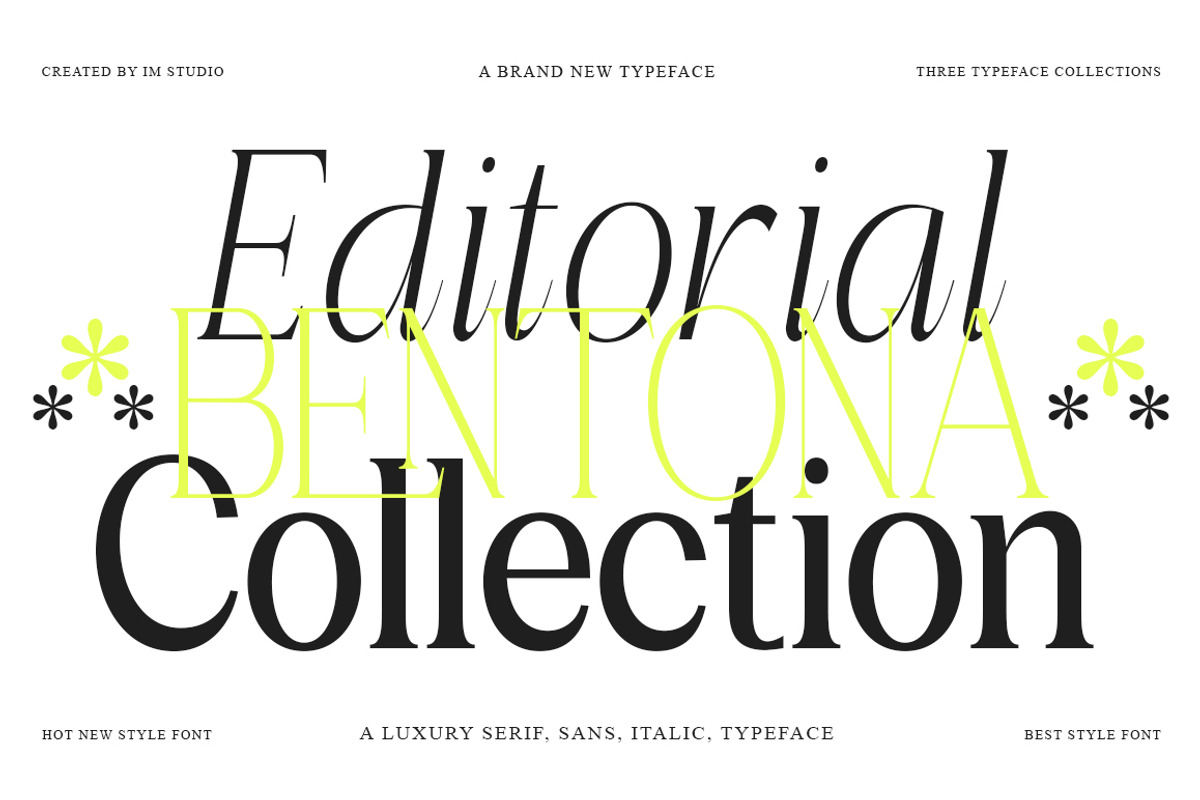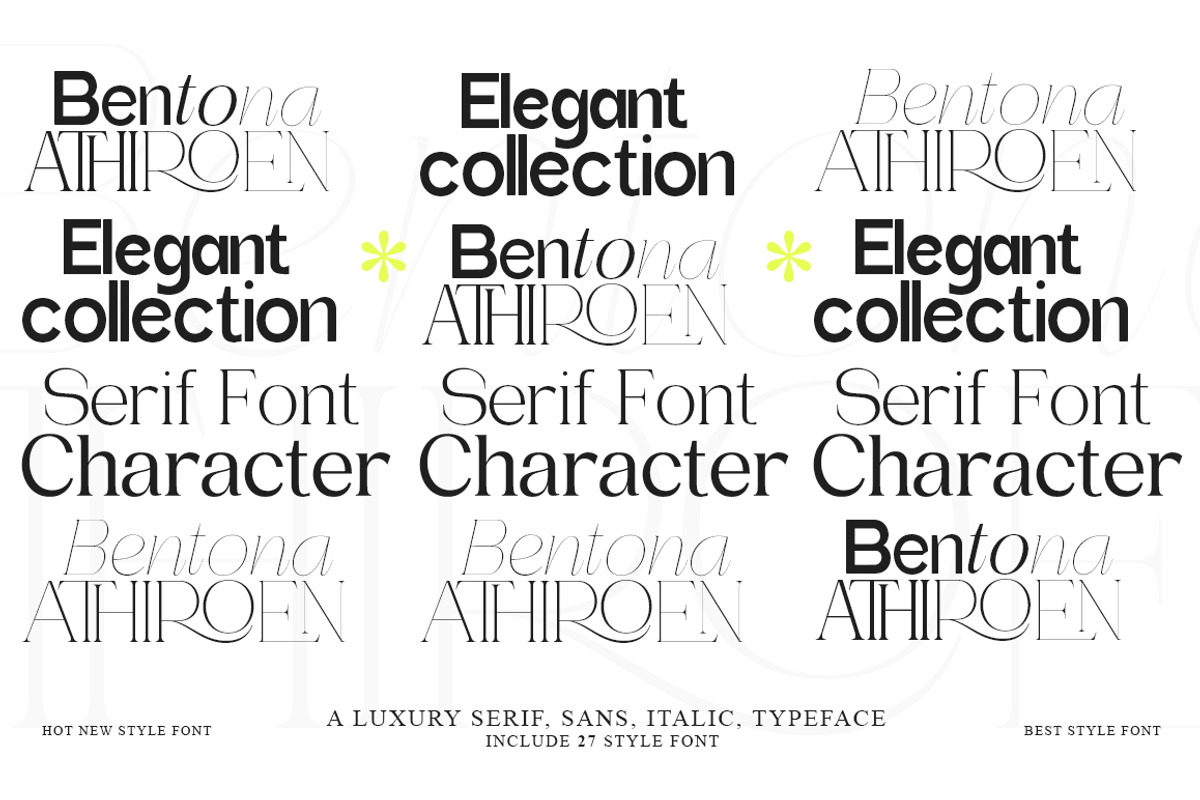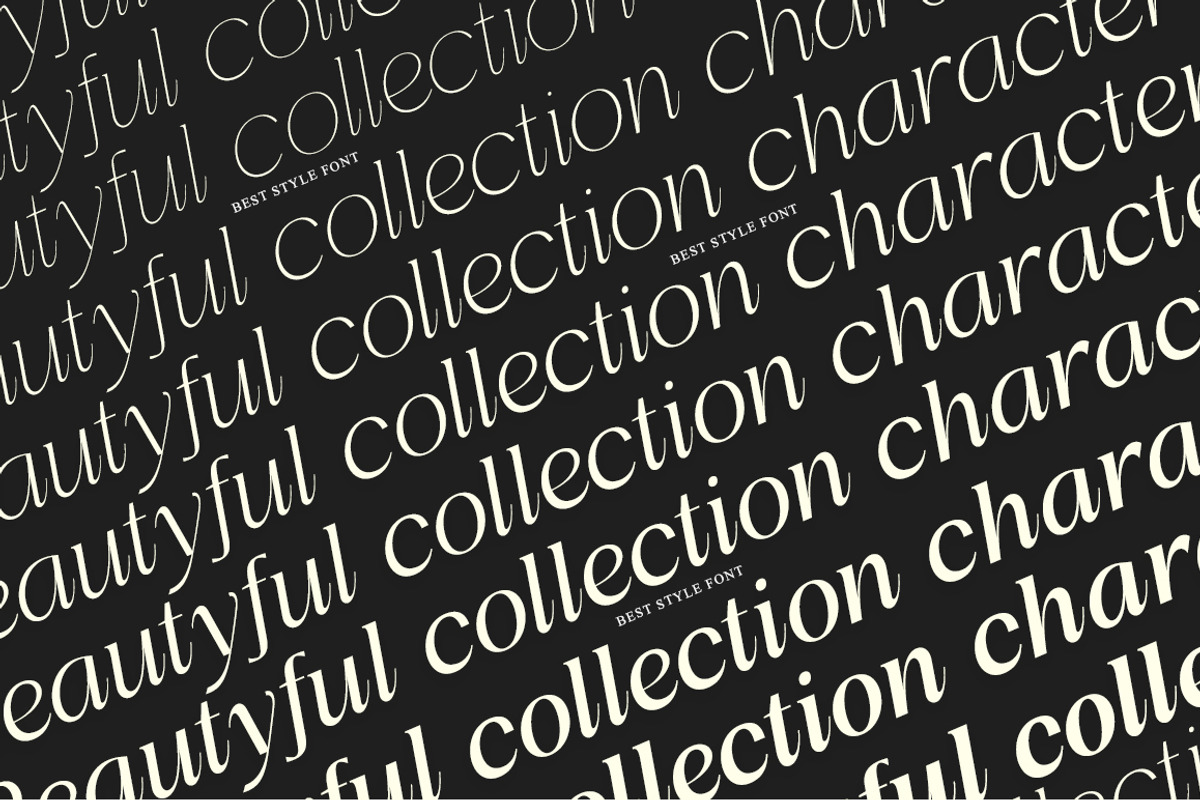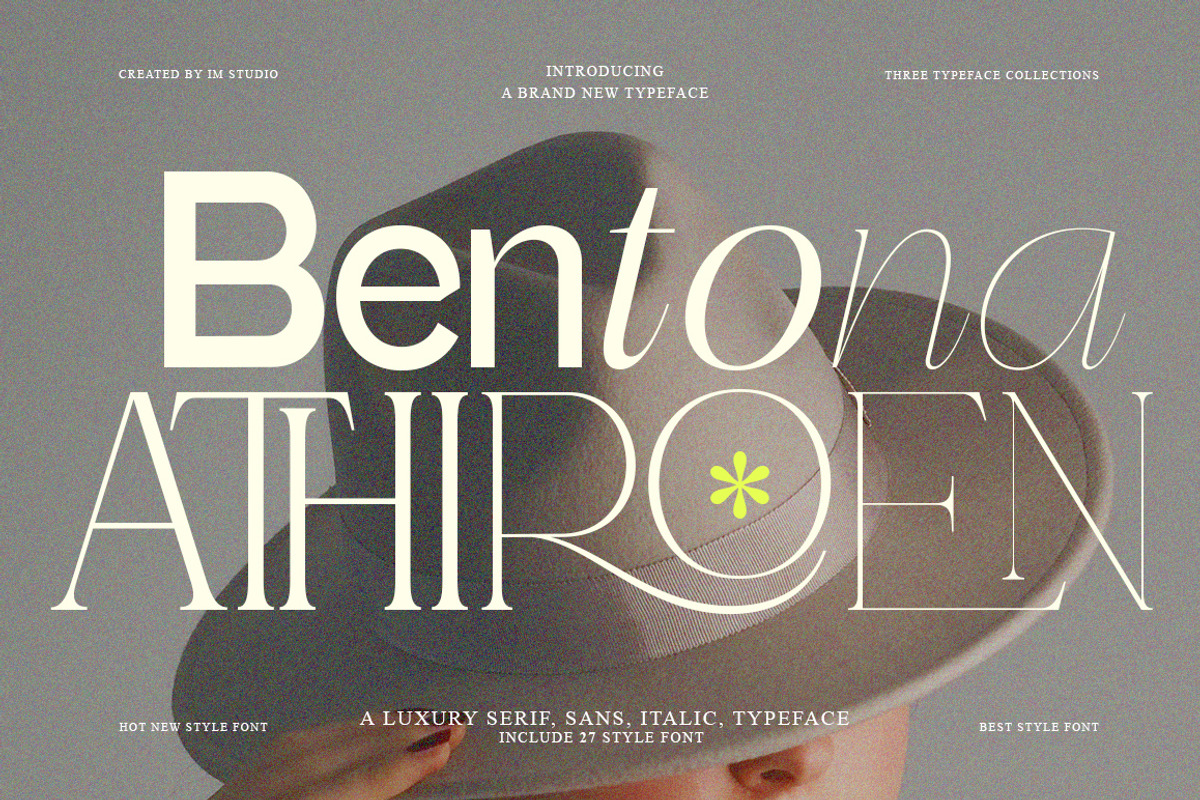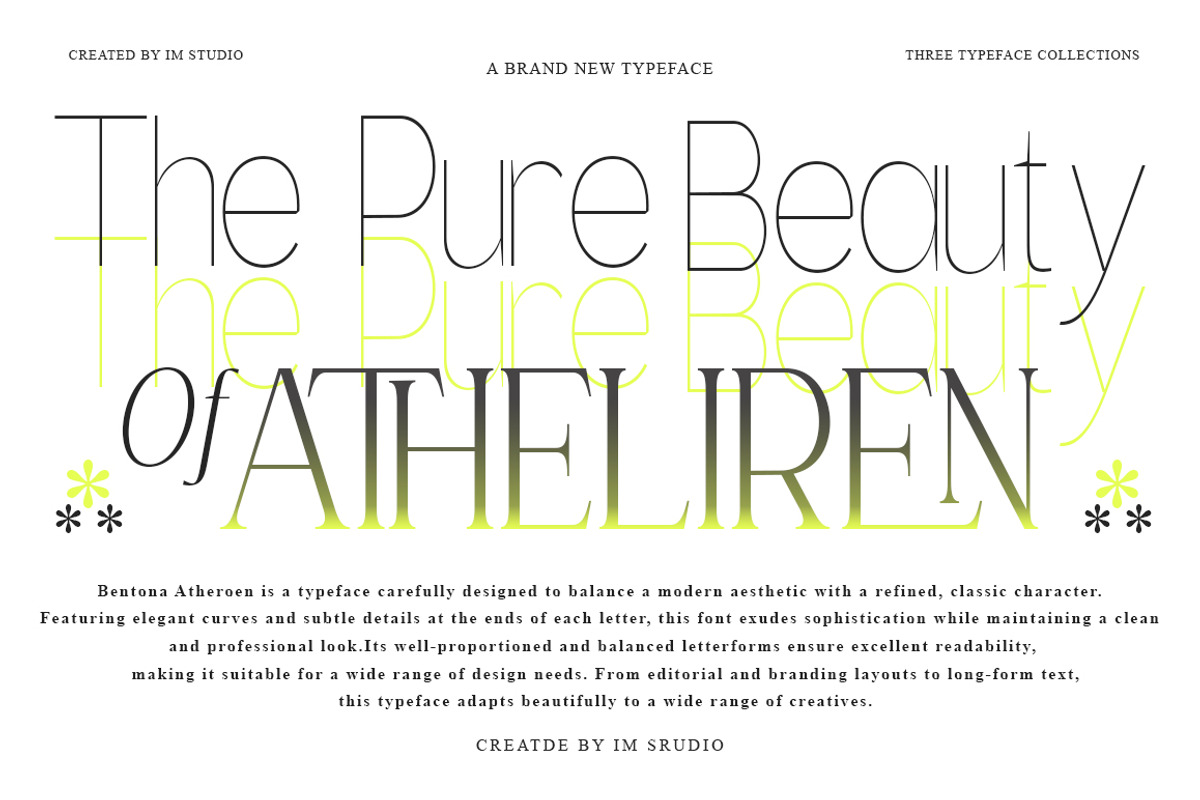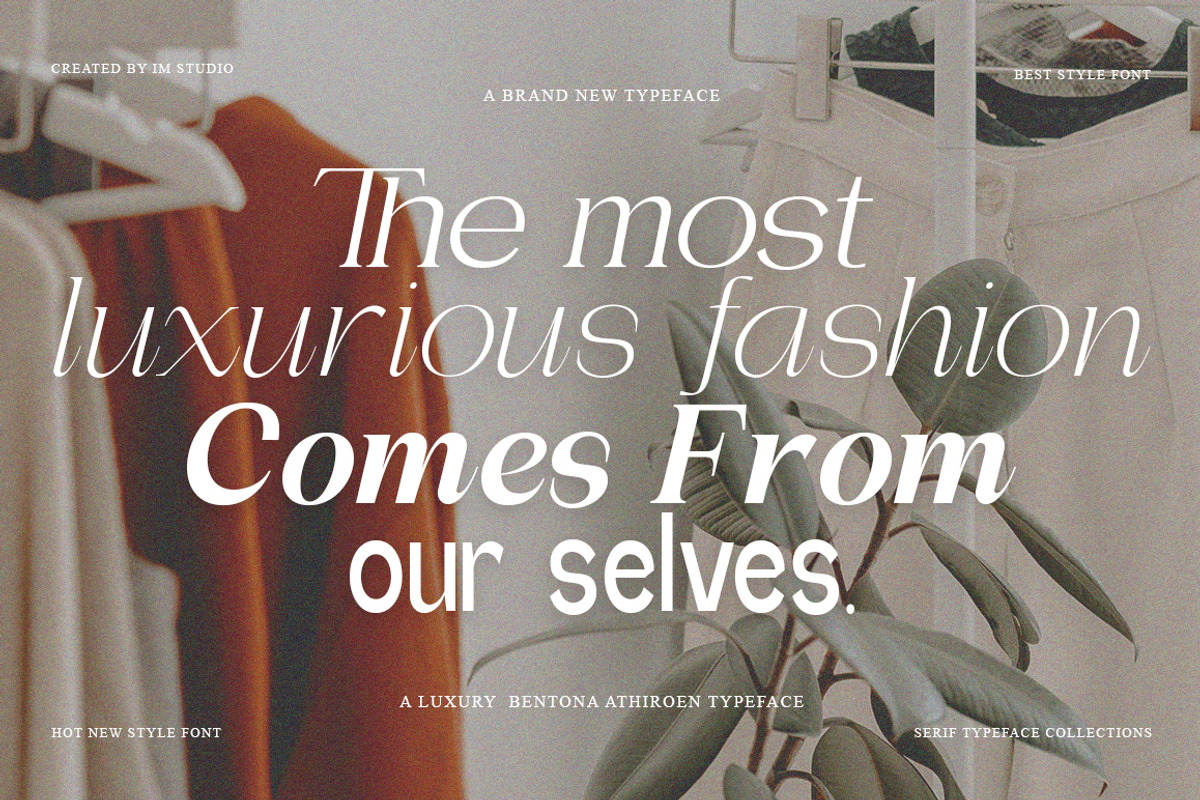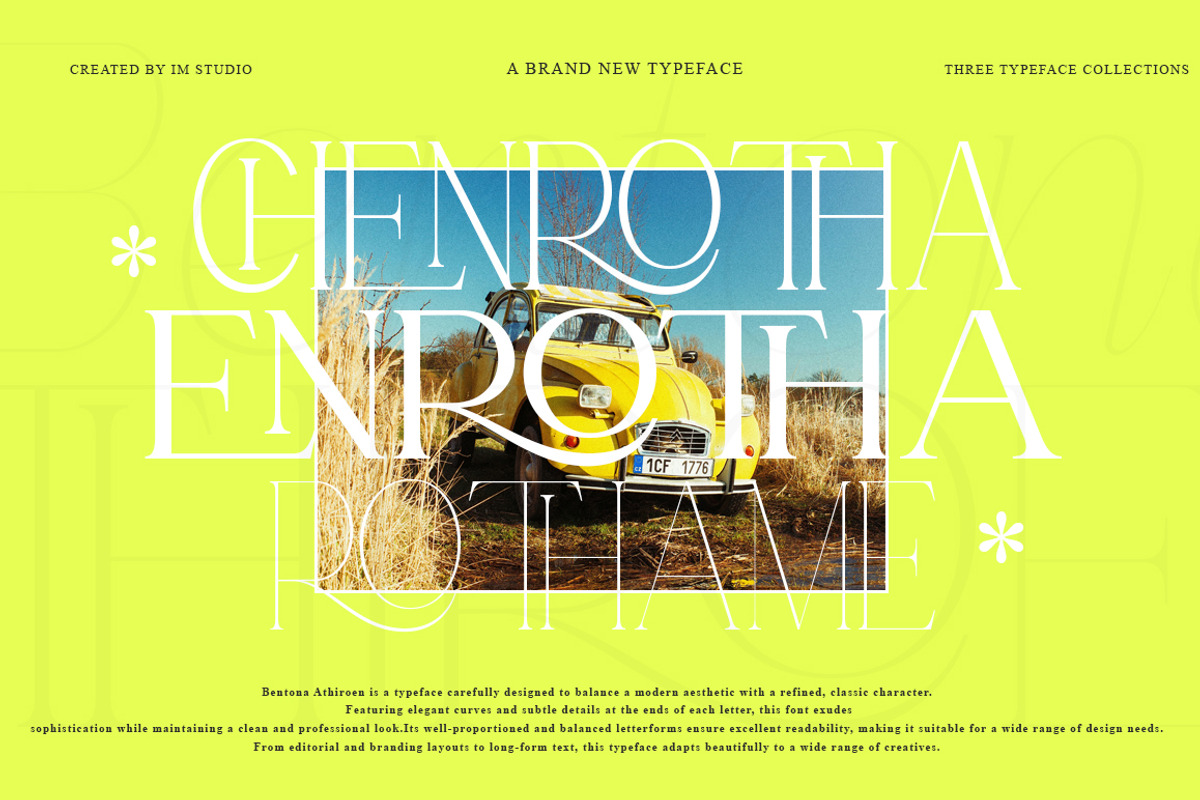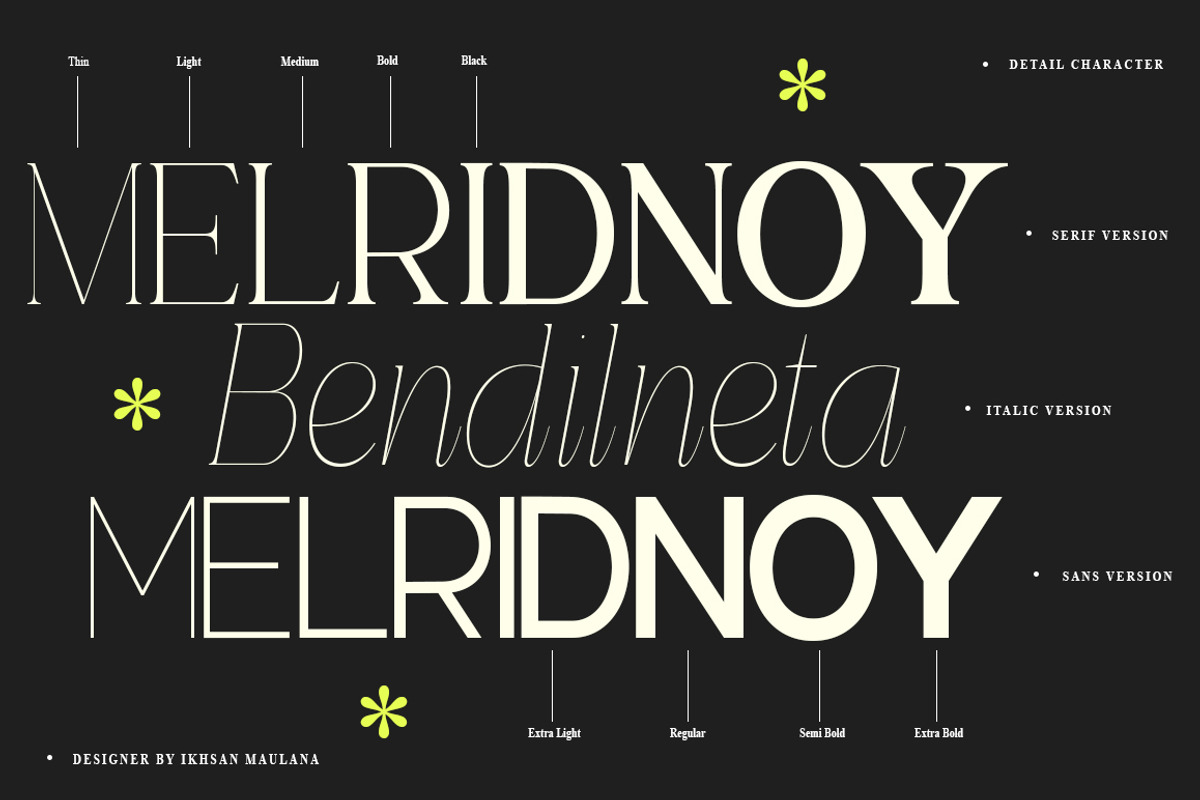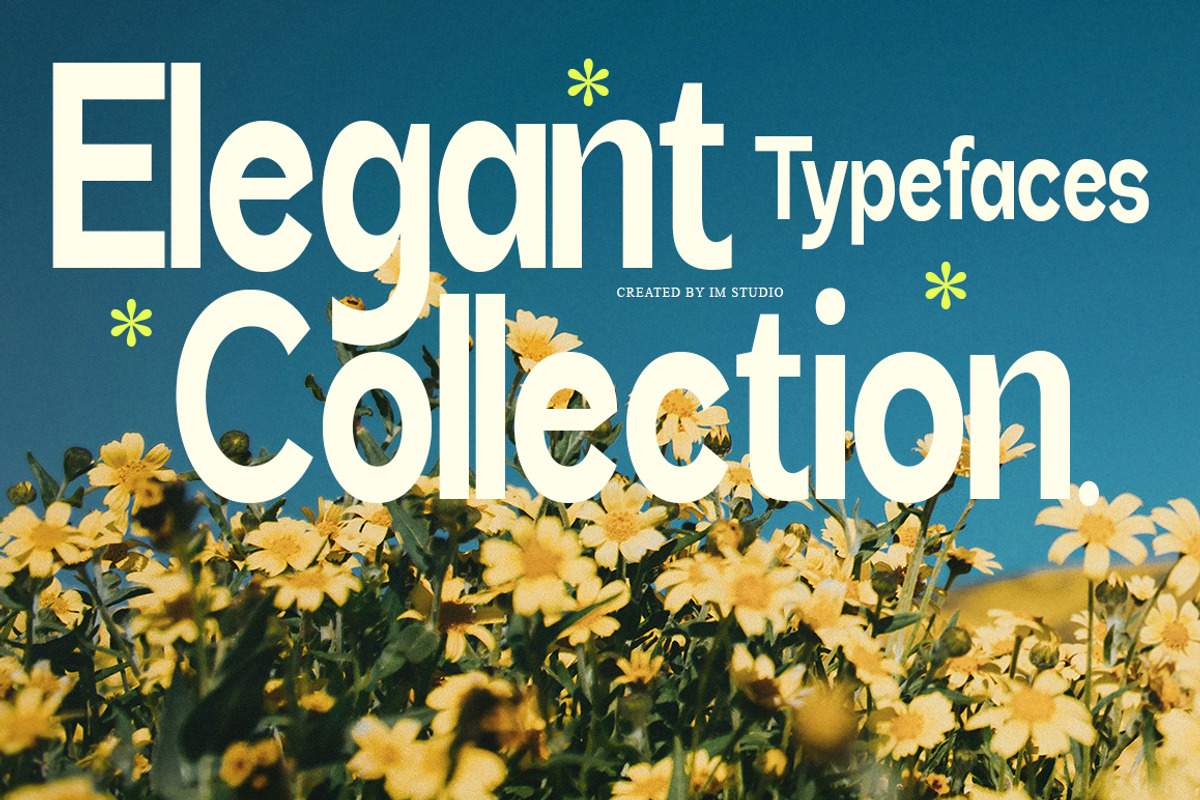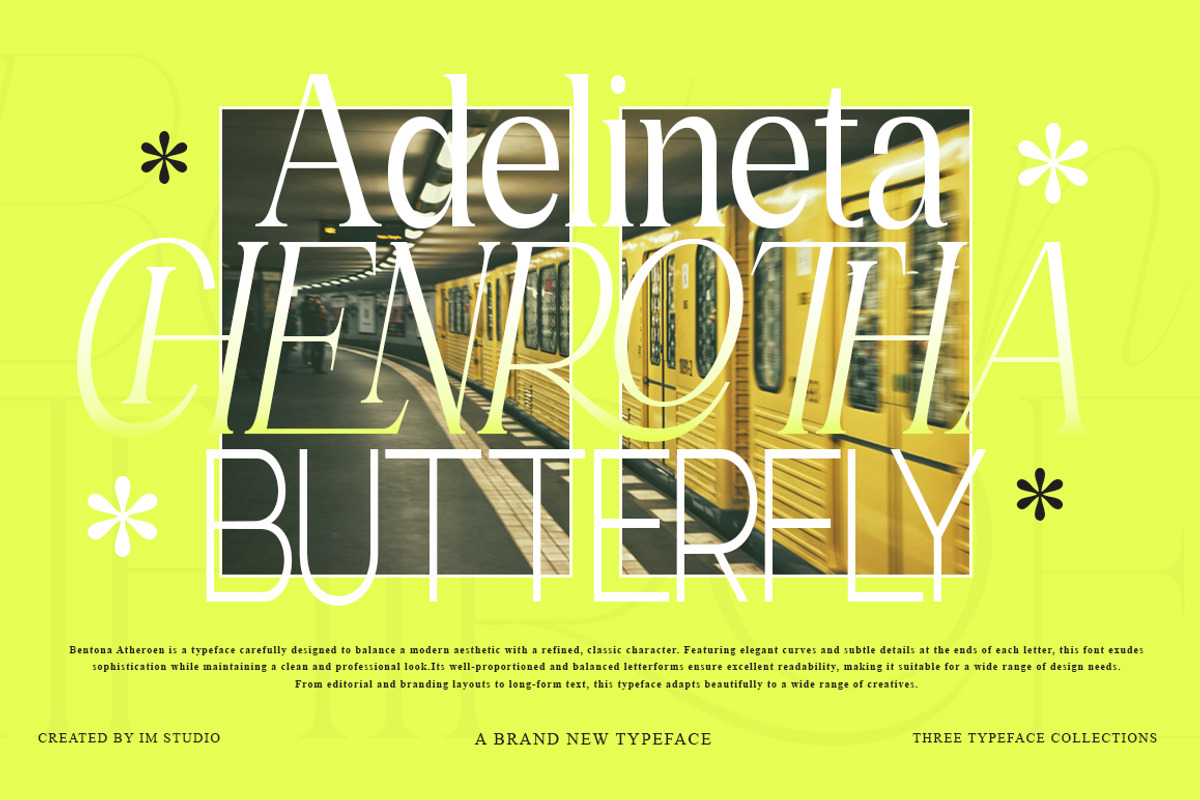
Bentona Athiroen (27 Fonts Style)
Introducing Bentona Athiroen A Sans, Serif & Italic Typeface for the Modern Creative
Where precision meets elegance. Bentona Athiroen is a meticulously crafted typeface family that bridges the gap between modern clarity and timeless sophistication. Every letterform is engineered with deliberate balance — clean structure, subtle contrast, and refined curves that command attention without demanding it. Whether you're setting a headline or composing a full editorial spread, Bentona Athiroen adapts effortlessly, bringing a quiet confidence to every design it touches.
The Typeface, Defined Step into a world where typography becomes an experience. Bentona Athiroen's harmonious proportions and contemporary sensibility make it equally at home in bold brand identities and delicate, refined compositions. Its purpose-built italic style — a true slant design, not a mechanical lean — introduces a natural sense of movement and rhythm, giving your work a dynamic yet polished character. Three distinct styles. One unified vision.
Key Features ✦ Modern Clarity A clean, structured architecture ensures effortless readability at any size, from fine print to large-format displays — without sacrificing elegance. ✦ Elegant Ligatures A curated selection of sophisticated ligatures elevates your typography, adding expressiveness and visual refinement to every word. ✦ Advanced OpenType Features Full OpenType support gives designers precise typographic control — fine-tune spacing, alternate glyphs, stylistic sets, and more. ✦ Extensive Language Support With support for over 90 languages, Bentona Athiroen is built for the world stage — ideal for brands and creatives with a global voice. ✦ True Slant Italic Design Unlike a simple oblique, the italic style is purpose-built from the ground up — flowing naturally alongside the upright styles for a seamless, organic feel.
Made For Use CaseWhy It WorksEditorial & PublishingExceptional readability for magazines, books, and long-form printBranding & IdentityClean, modern forms that build memorable, lasting impressionsWeb & Digital DesignOptimized for clarity and legibility across all screen sizesPackaging & PrintAdds a premium, contemporary touch to physical materialsInvitations & StationeryElegant and versatile — equally suited to formal and creative occasions
What's Included Bentona Athiroen Sans — 9 Weights Bentona Athiroen Italic — 9 Weights Bentona Athiroen Serif — 9 Weights 27 Total Styles — a complete typographic system ready for any creative challenge.